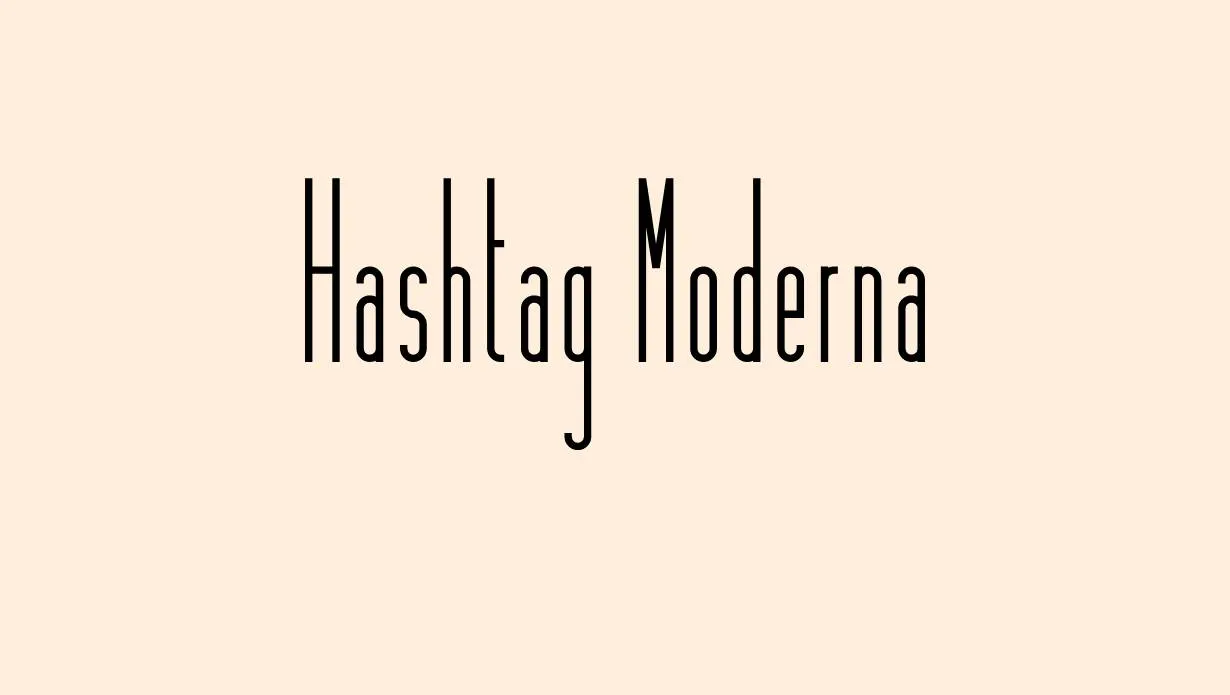
If you are into modern and bold font styles, Moderna Font is the way to go. It’s a popular choice for anything related to social media, technology, and modern design. Explore this font for a fresh and trendy look that will make your projects stand out. Keep reading to discover the secret to making your work pop!
Its sleek and dynamic letterforms add a sense of innovation and relevance to your designs.
Hashtag Moderna Font Family
| Designer | Piotr Łapa |